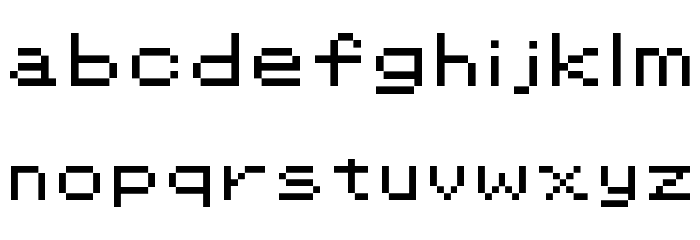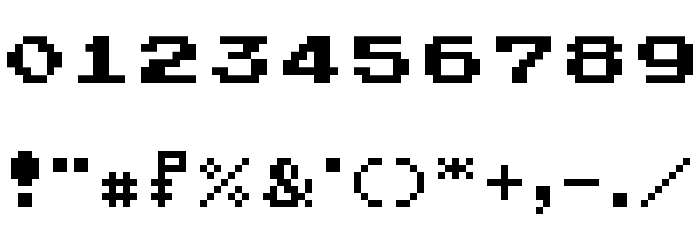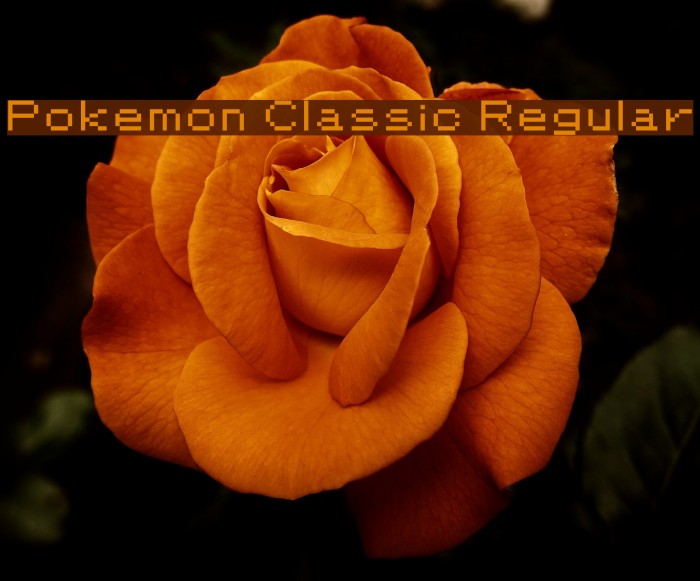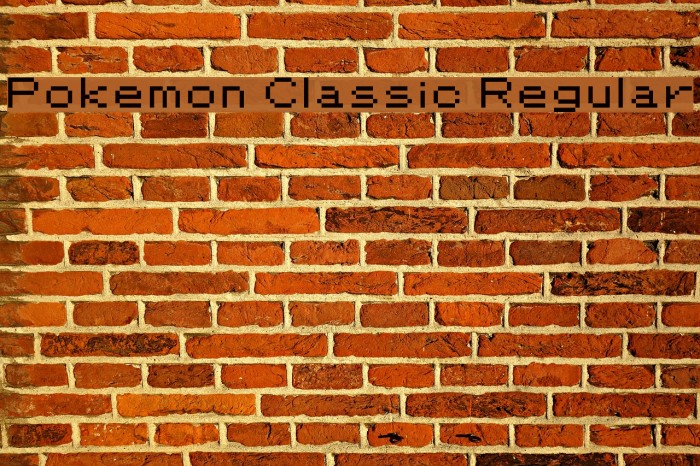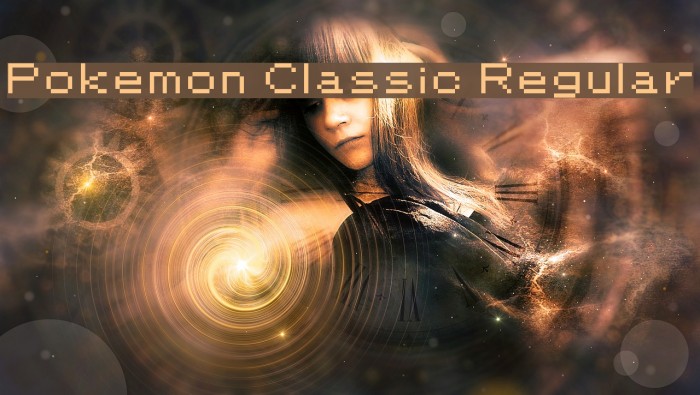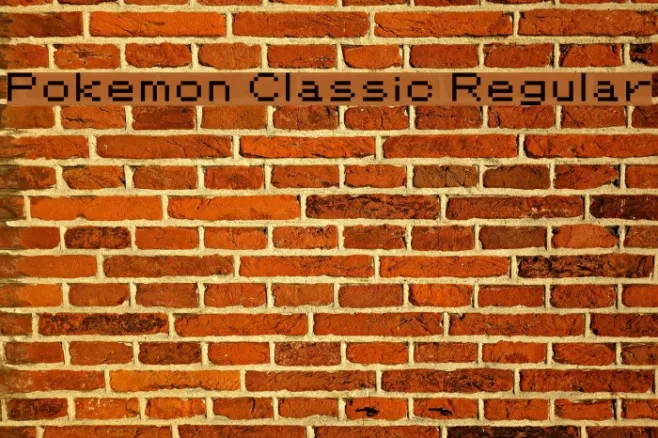
Pokemon Classic Regular Font
This font features a pixelated, retro style reminiscent of classic video games. The characters are blocky and geometric, with uniform stroke widths that create a cohesive and structured appearance. The uppercase and lowercase letters maintain a consistent height, contributing to a balanced and orderly look. The numerals and special characters follow the same pixelated design, ensuring visual harmony across all elements. This font evokes nostalgia and is ideal for projects aiming to capture a vintage gaming aesthetic.
A pixelated, retro font inspired by classic video games.
- Proposed Projects: Ideal for retro-themed video games, nostalgic branding, digital art projects, and any design requiring a vintage gaming aesthetic.
- Overall Style: Vintage
- Use Case: Logos, Headlines, Digital Art